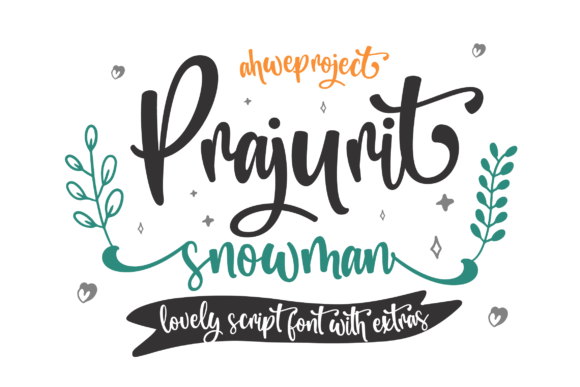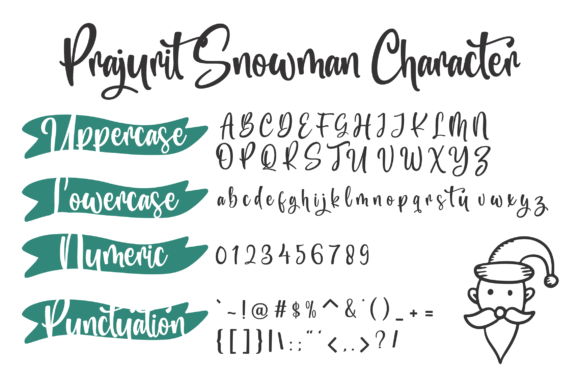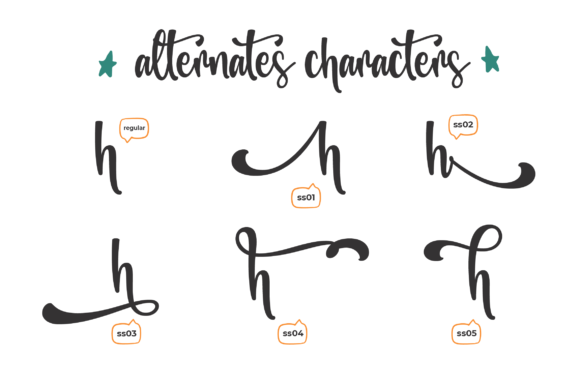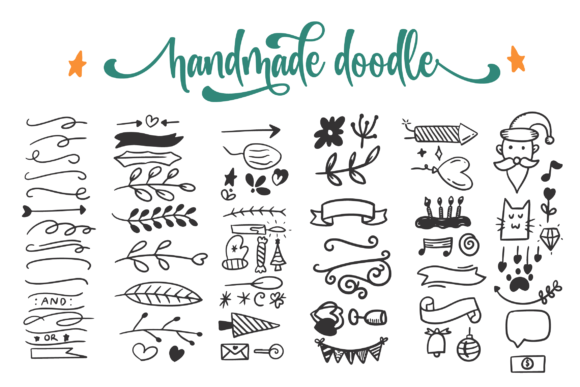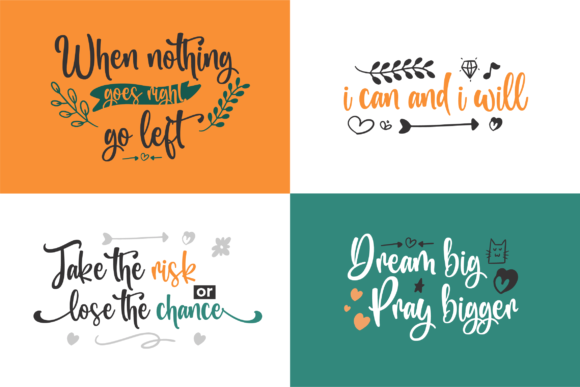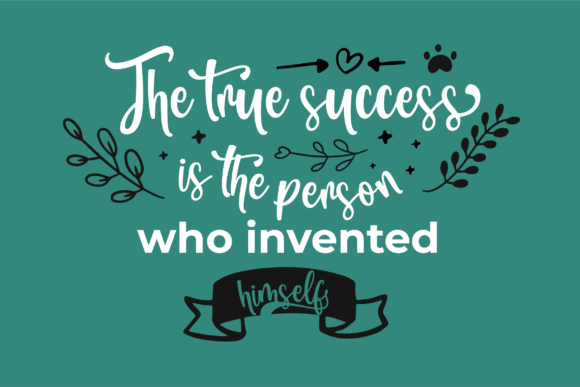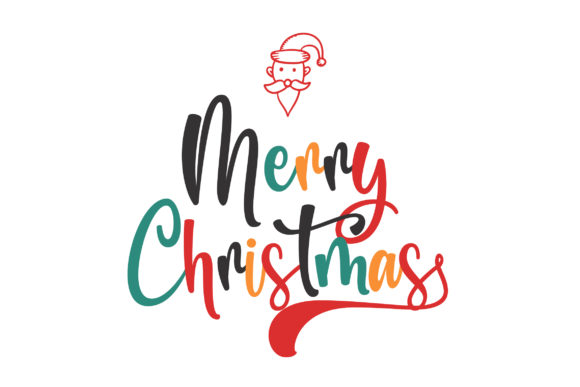
Prajurit Snowman Font
About Prajurit Snowman Font
Prajurit Snowman is a beautiful and romantic handwritten font. It will look stunning on wedding invitations, thank you cards, quotes, greeting cards, logos, business cards, and any design that needs a handwritten touch.